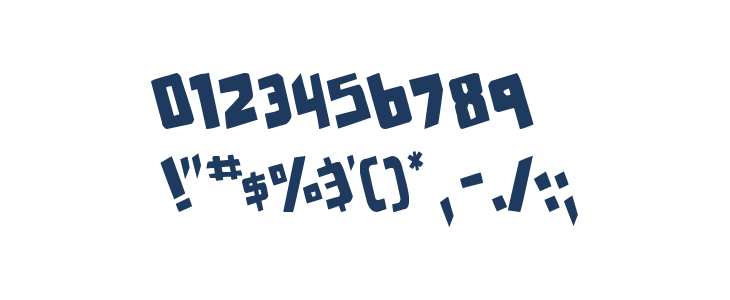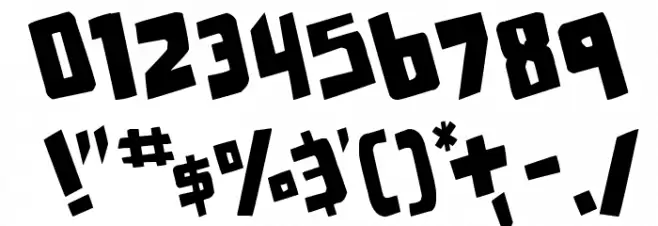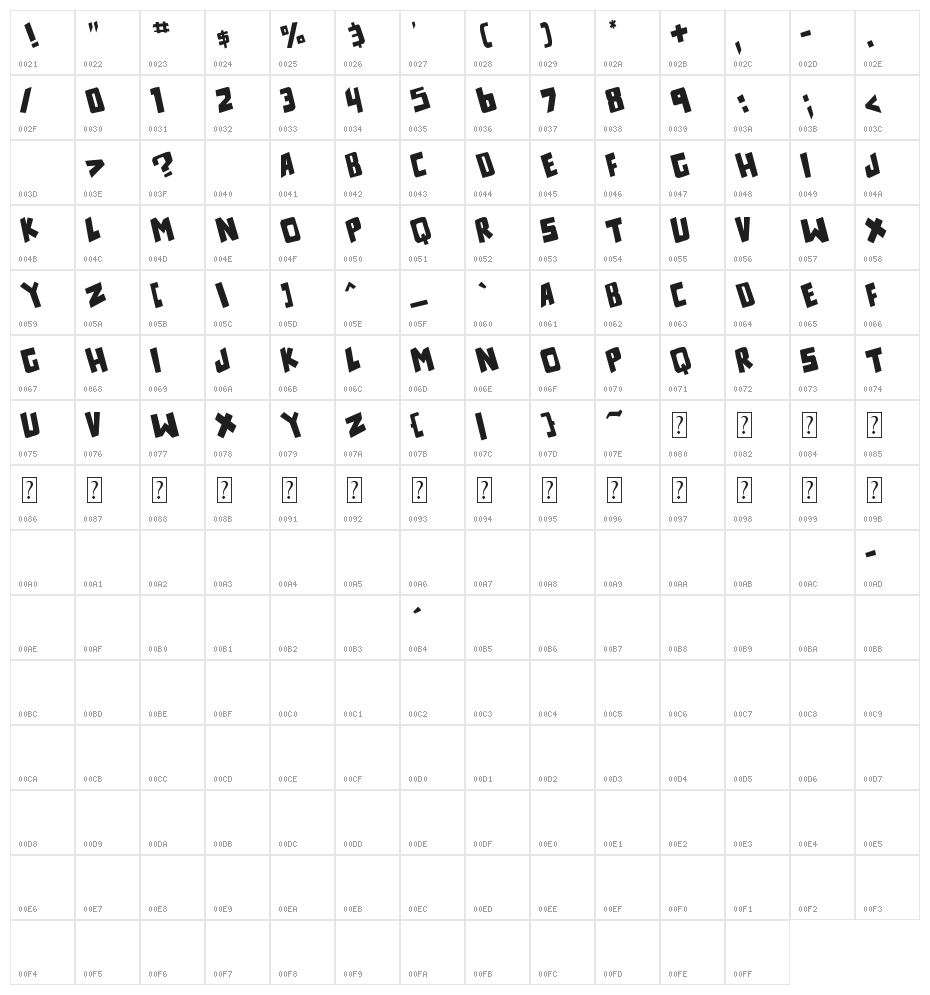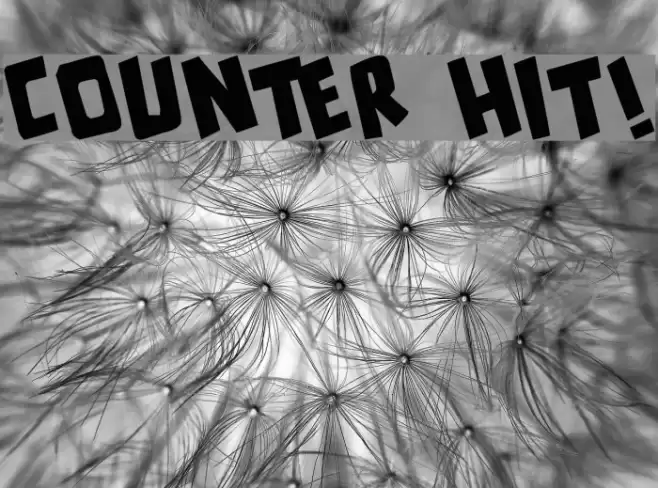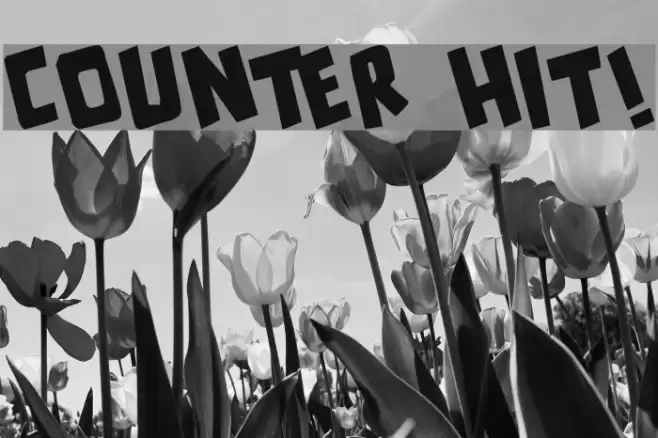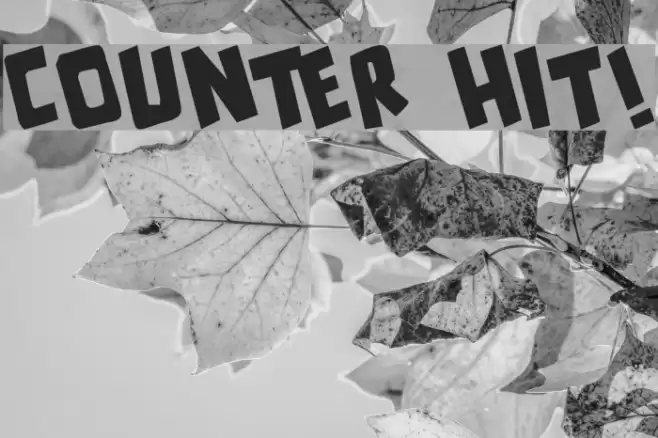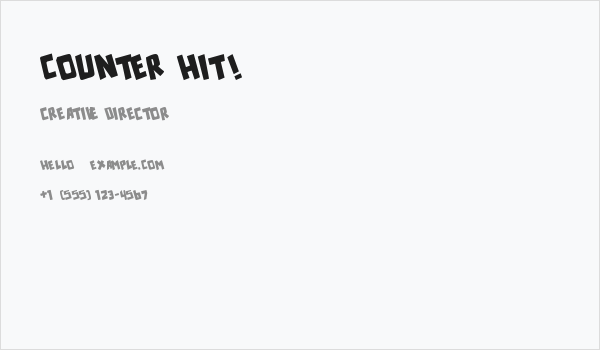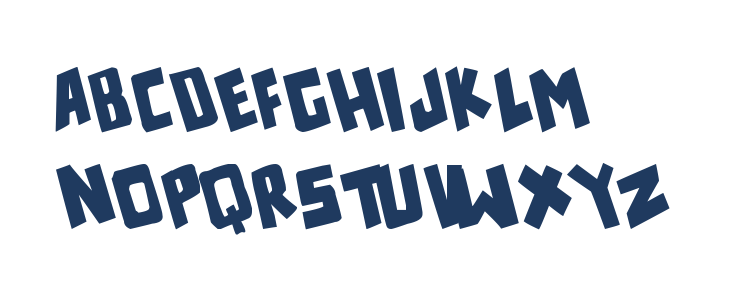
counter hit! Font
counter hit! Description
This font features a bold, angular design with a dynamic and energetic feel. The characters are sharply cut, giving them a geometric and slightly aggressive appearance. The uppercase and lowercase letters maintain a consistent style, with exaggerated angles and a slightly condensed form. The numbers and special characters follow the same bold and edgy design, making the font suitable for attention-grabbing headlines and impactful statements. Its unique style is reminiscent of graffiti or street art, adding a modern and rebellious touch to any project.
| Proposed Projects | Ideal for street art designs, video game graphics, posters, and branding that requires a bold statement. |